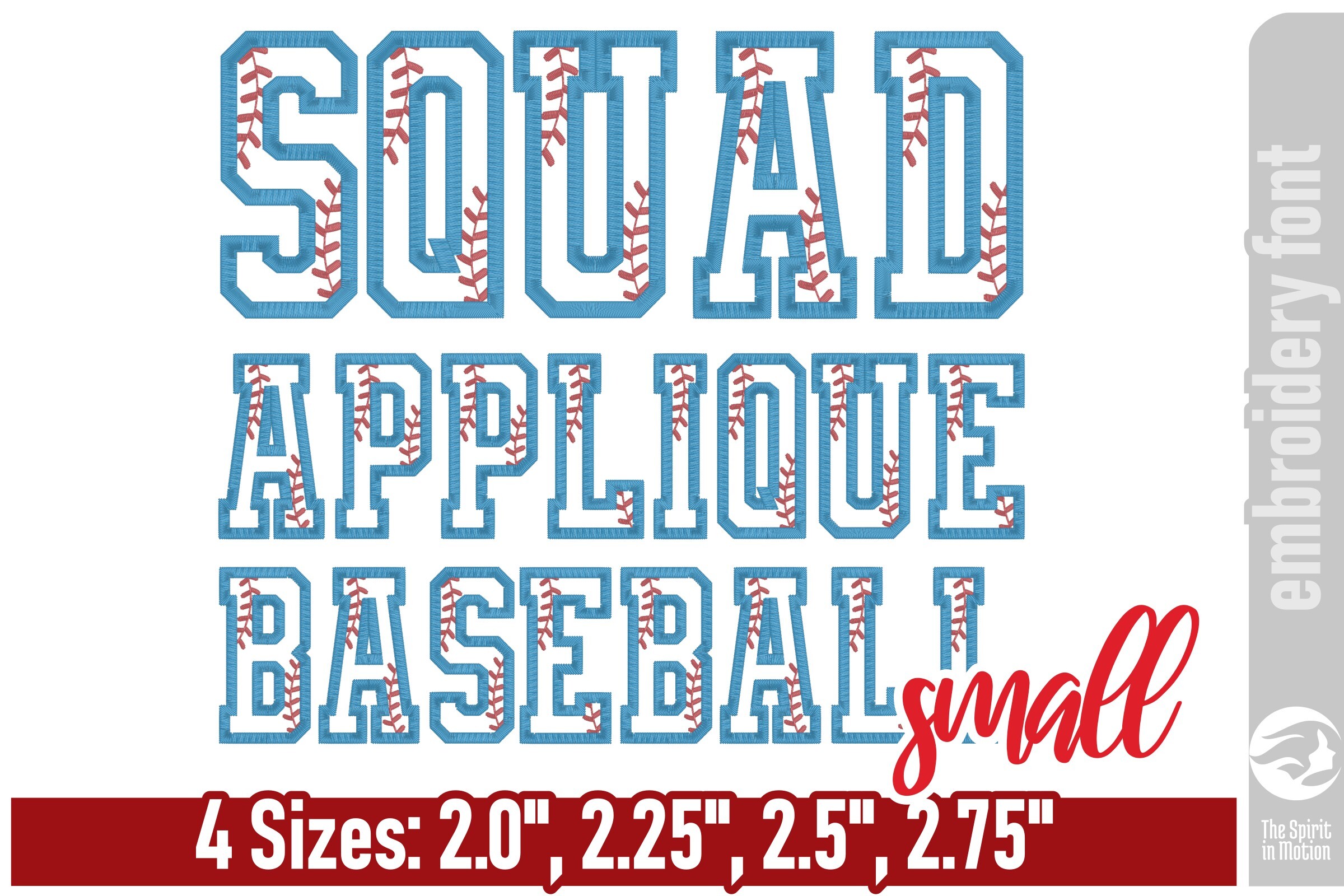
Squad Applique Baseball Font - Small
Squad Applique Baseball is a narrow varsity applique embroidery font that brings the ballpark vibe right to your machine! Each letter features a fun baseball/softball stitch pattern layer that runs before the satin border, giving your applique that classic, sewn-on look. Perfect for sporty shirts, bags, and team gear. The sizes and stitches information shown below is for "A" in each size. This is provided as a summary of what is available in this download file. For the full dimension details of all letters in this set, click on the More Sewing Info (PDF) button on this page.